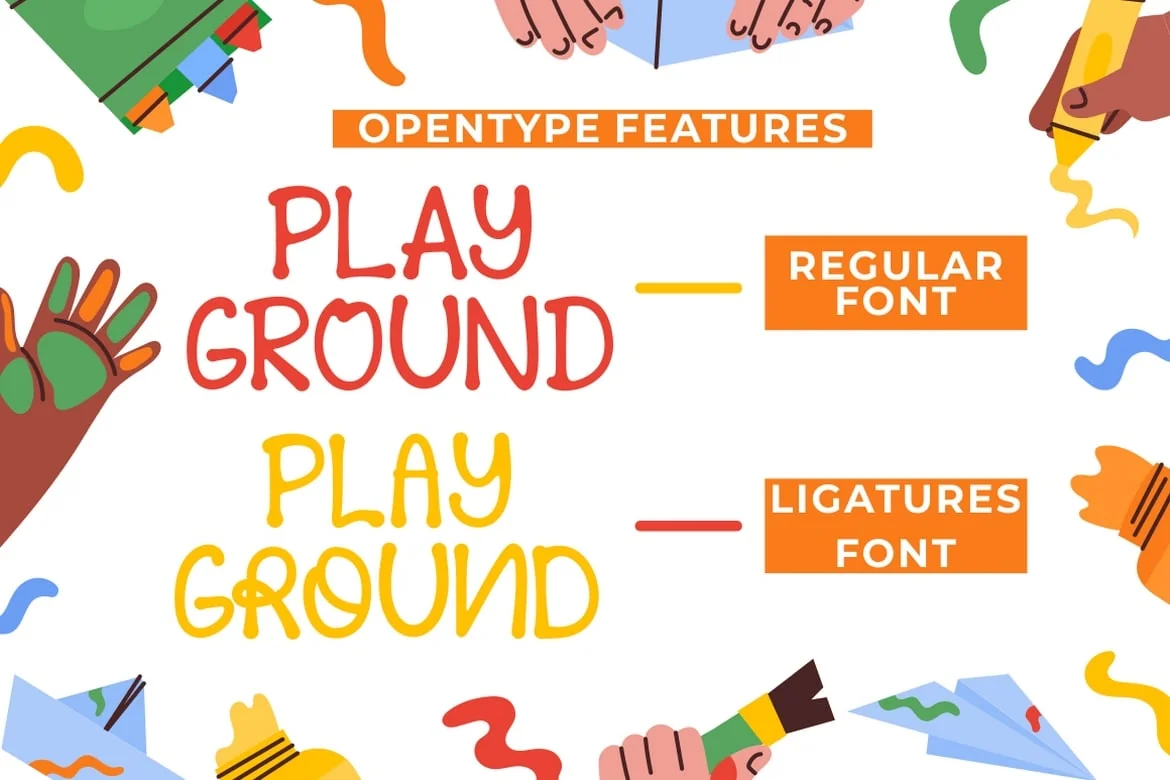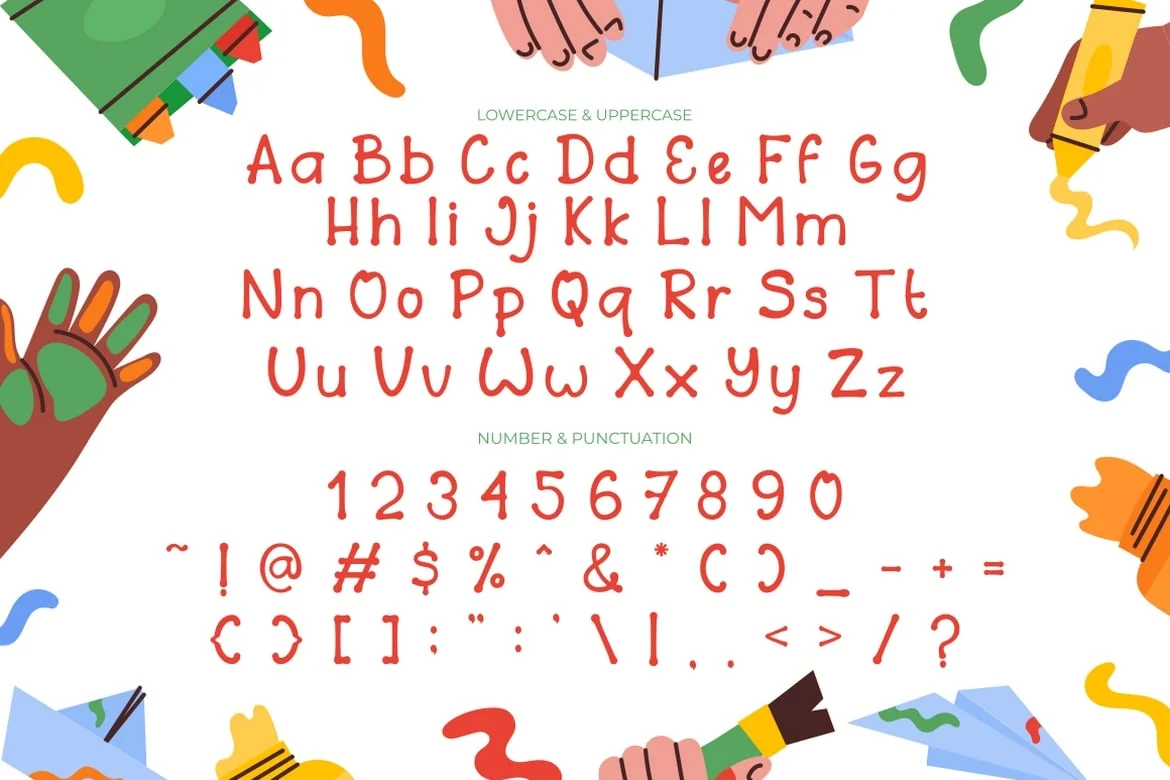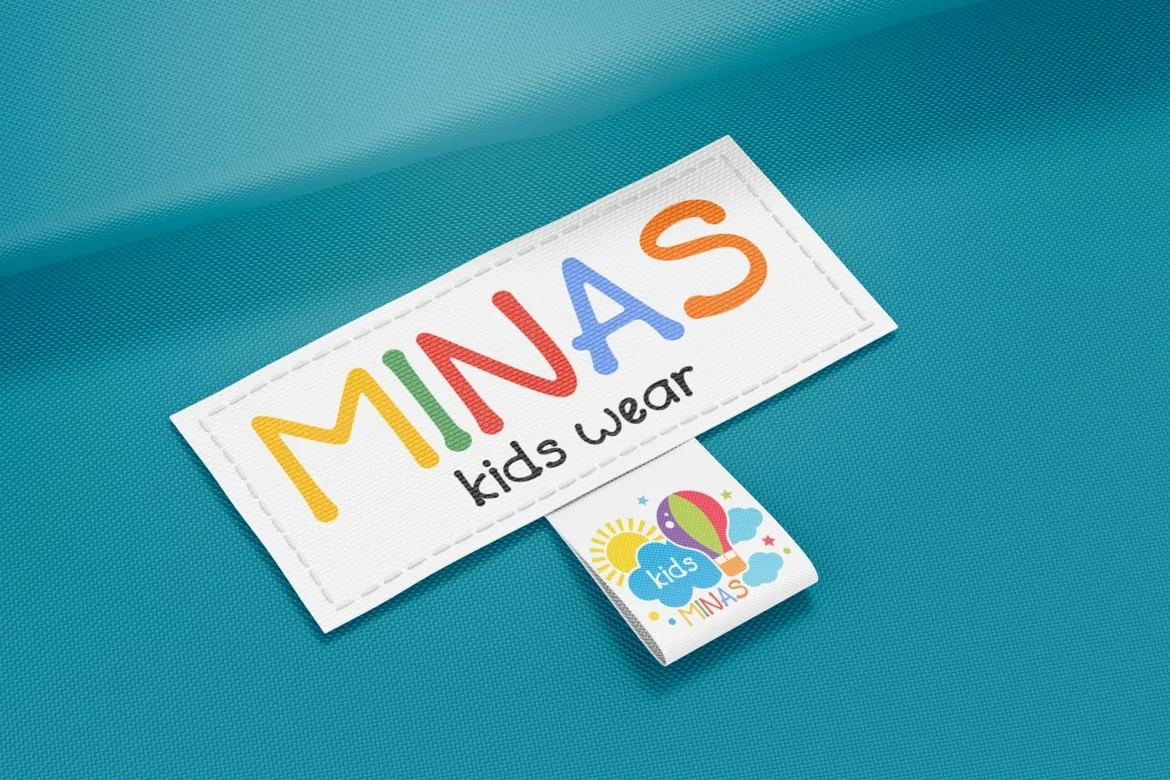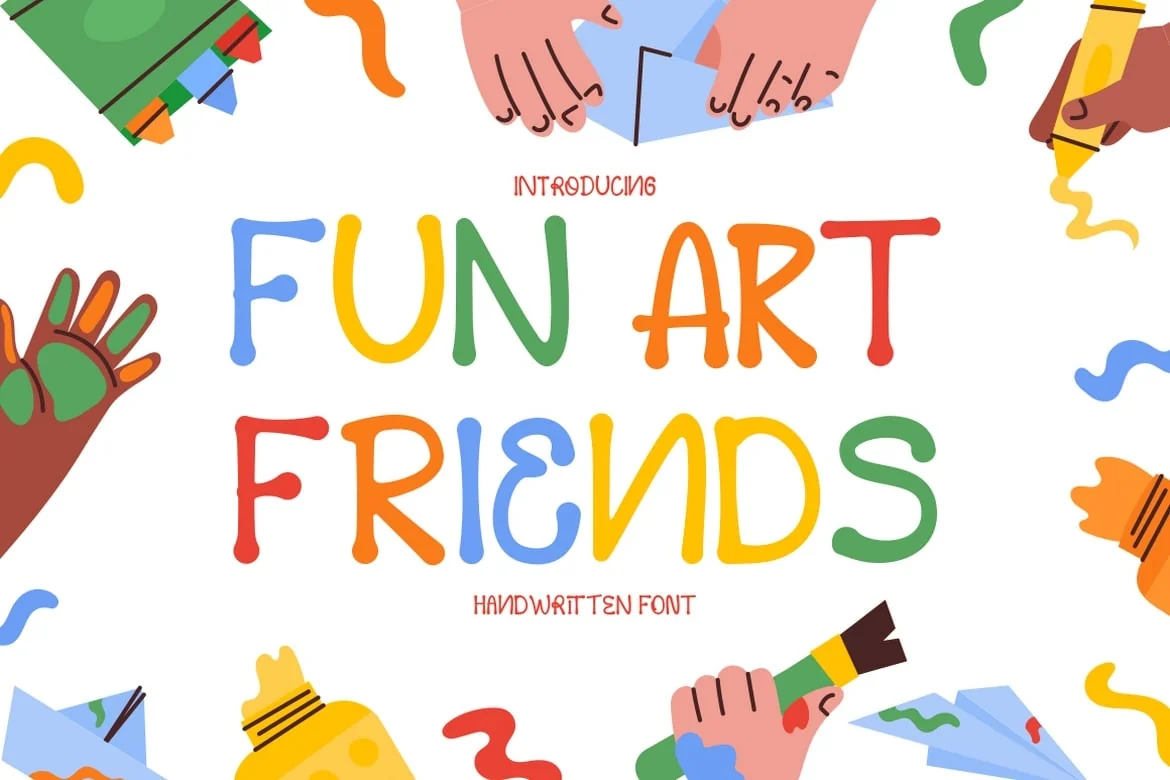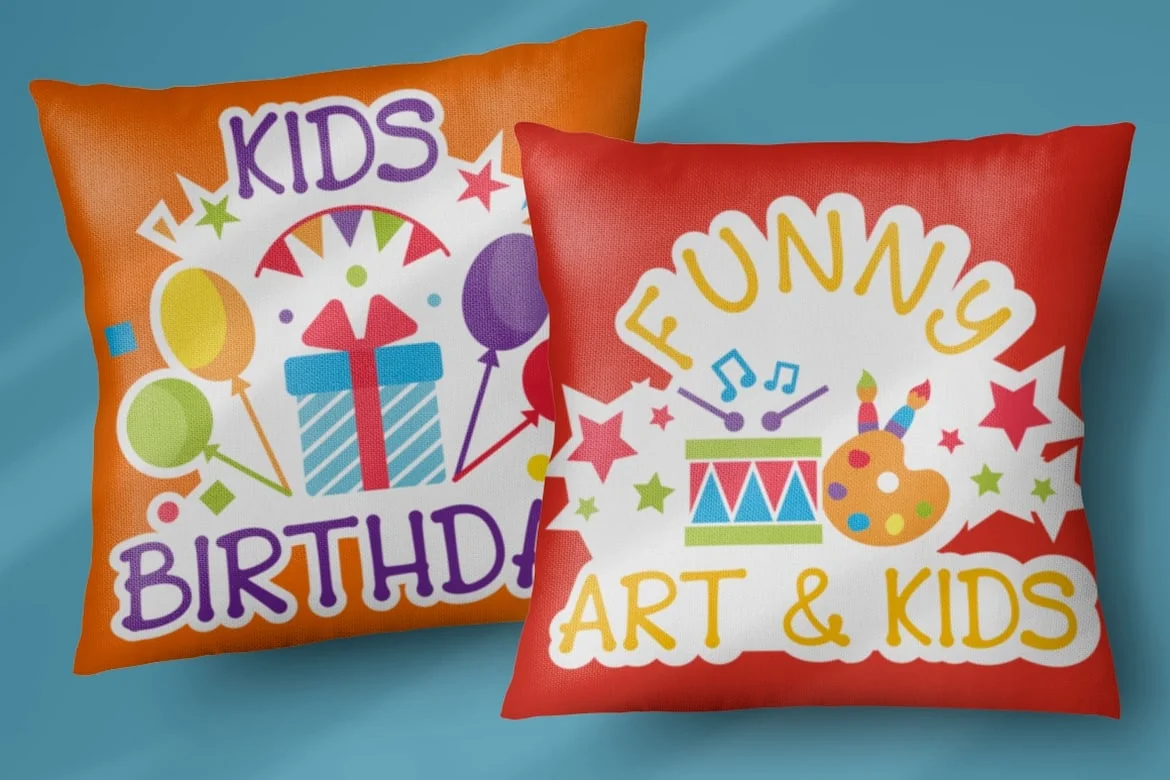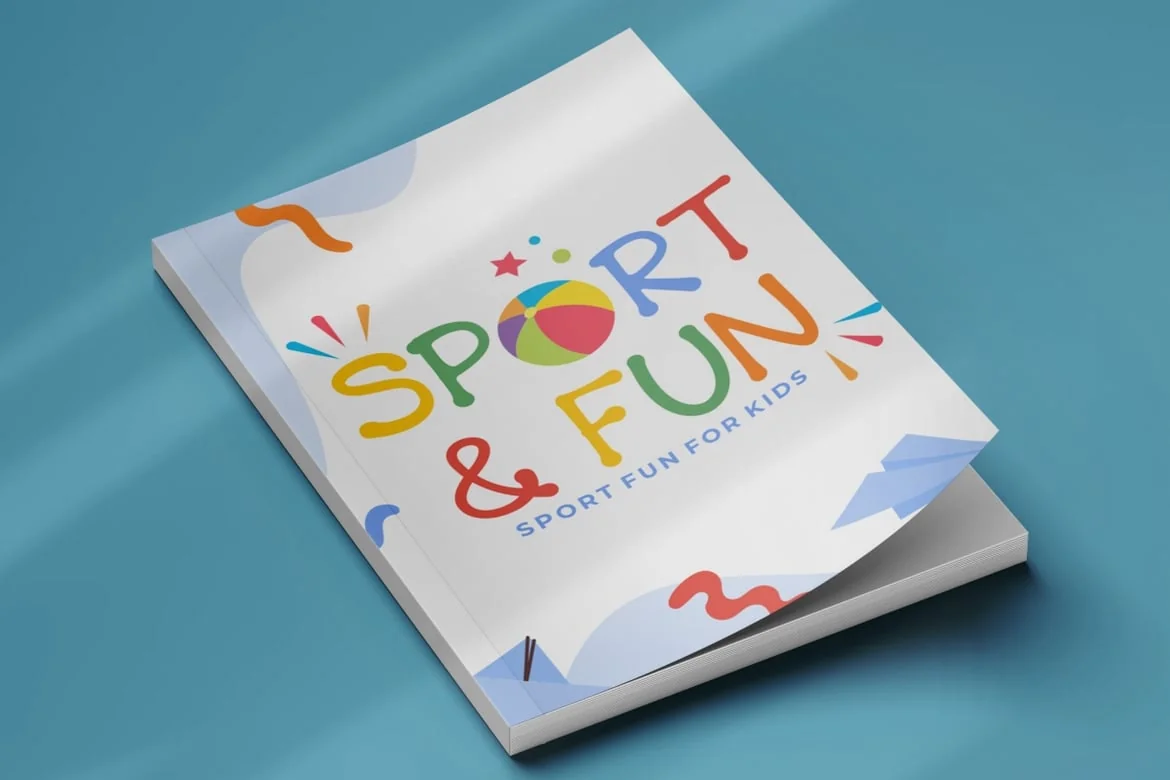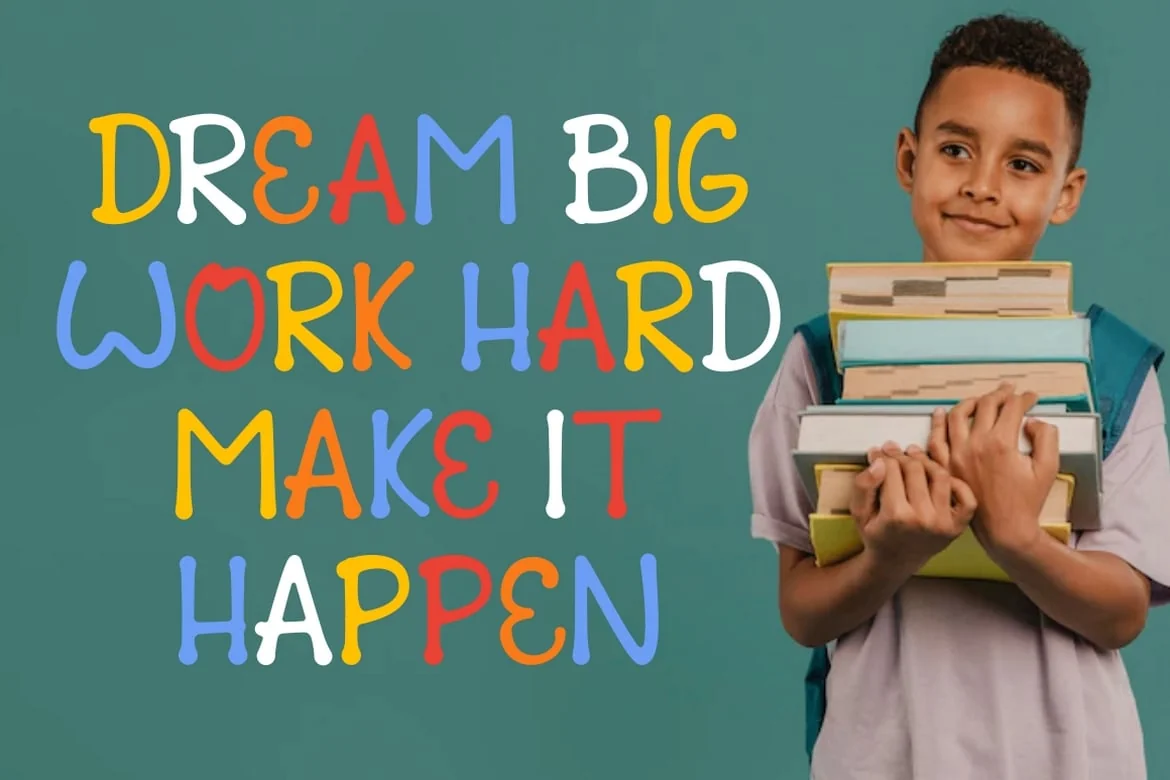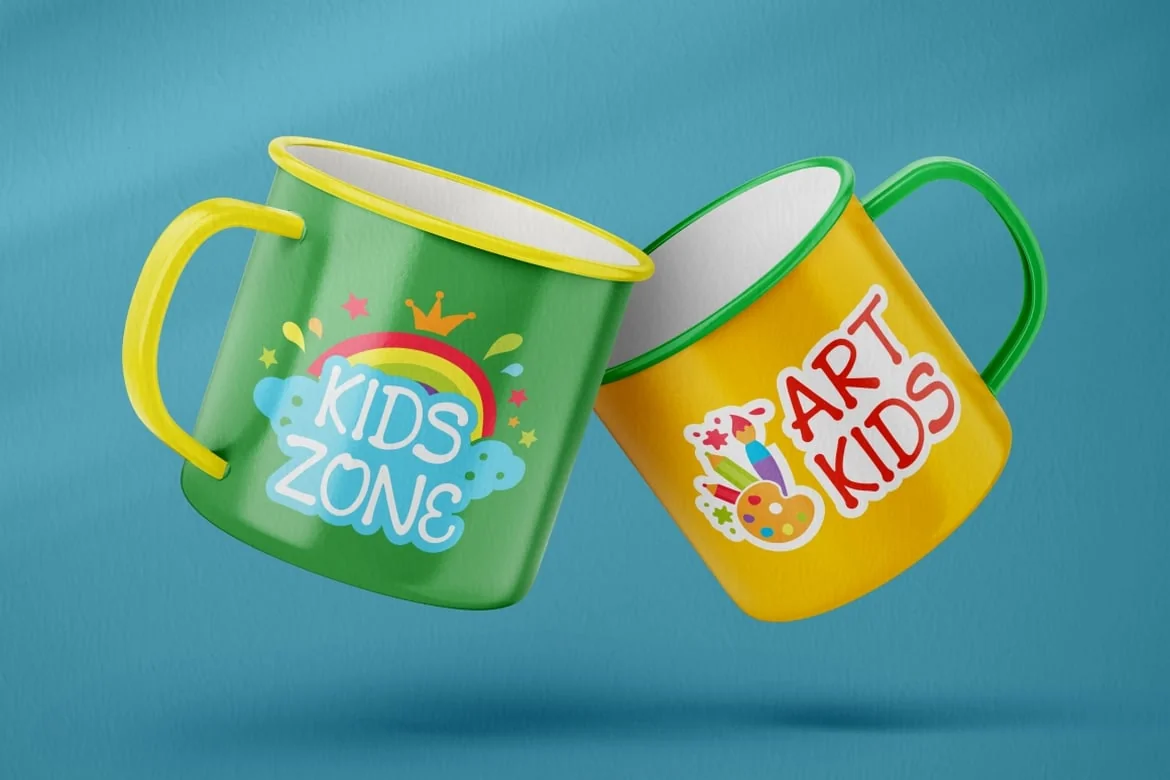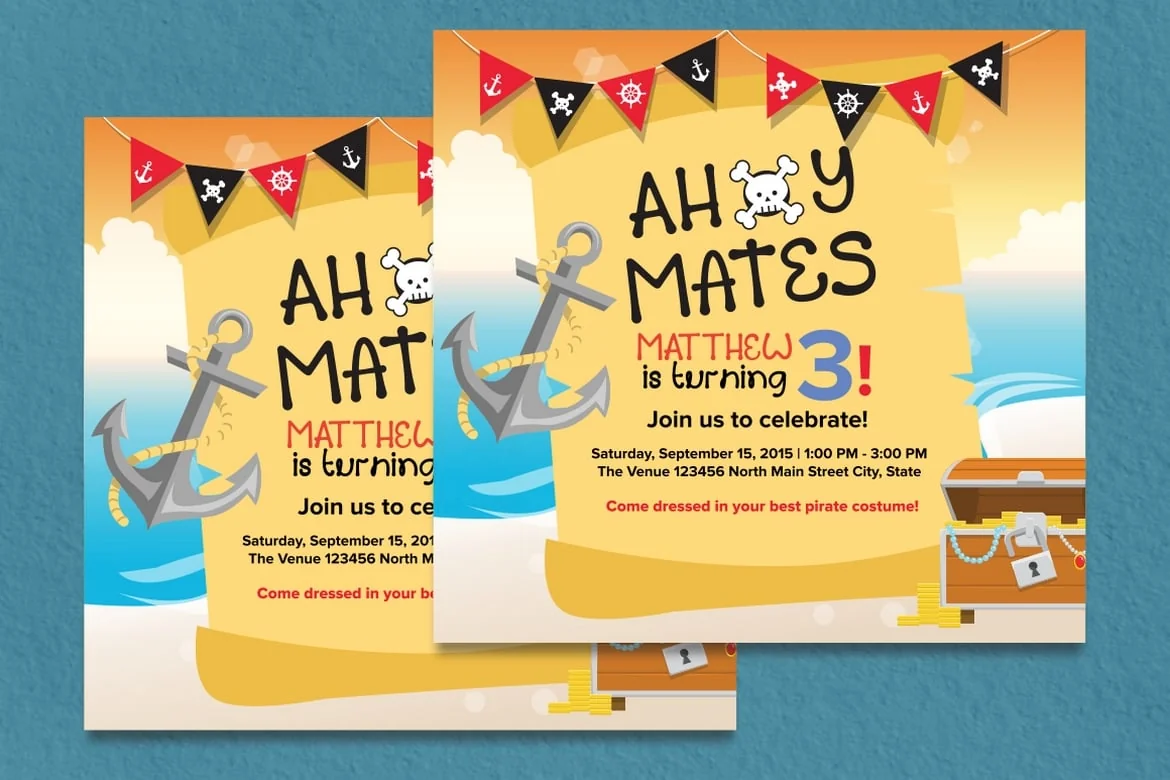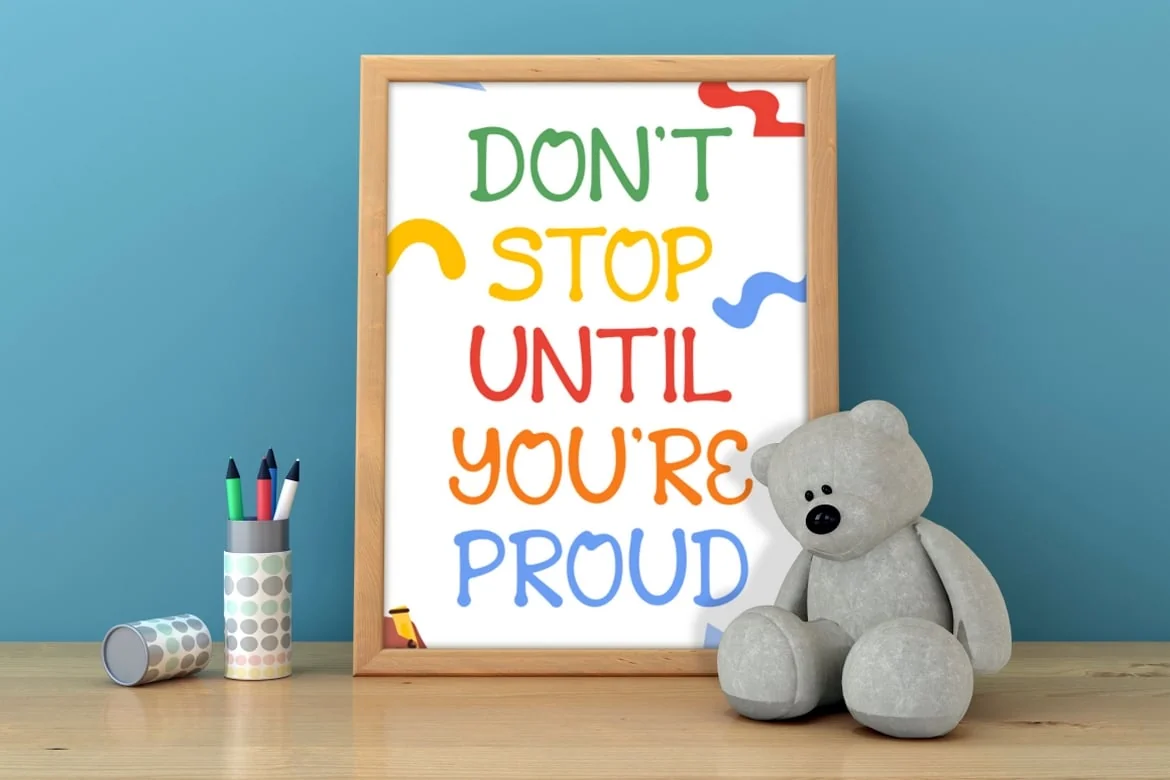
Fun Art Friends – Handwritten Font
Fun Art Friends – Handwritten Font is a delightful and playful font designed with a theme that resonates with children. It brings a sense of fun and whimsy to your designs, making it the perfect choice for various applications. Whether you’re creating products, titles, books, logos, or printing materials, this font adds a vibrant and lively touch to your projects.
The fun and playful nature of Fun Art Friends shines through its handwritten style. It emulates the free-spirited and energetic handwriting of children, creating a joyful and carefree vibe. The font is carefully crafted to capture the innocence and imagination of young minds, making it a great choice for projects targeting children or those that require a lighthearted and colorful approach.
Whether you’re designing a children’s book cover, a logo for a toy company, or printing materials for a playful event, Fun Art Friends – Handwritten Font will bring a sense of joy and excitement to your designs, capturing the attention and imagination of both children and adults.